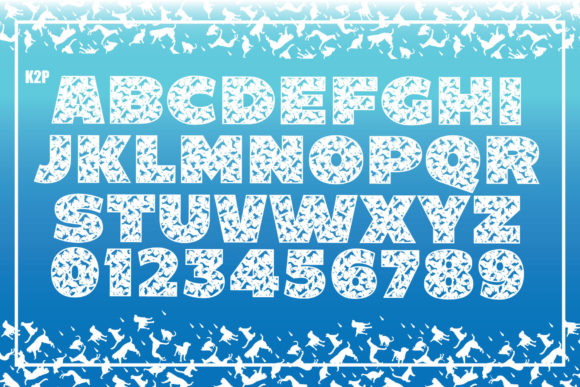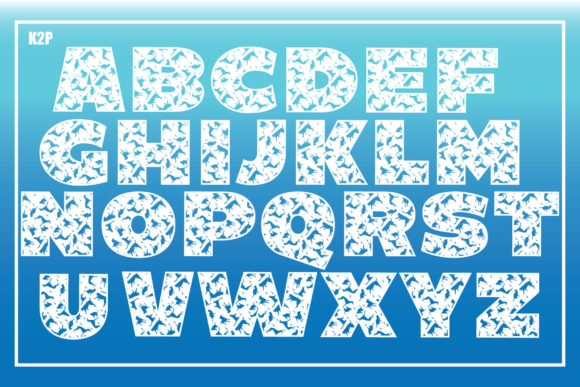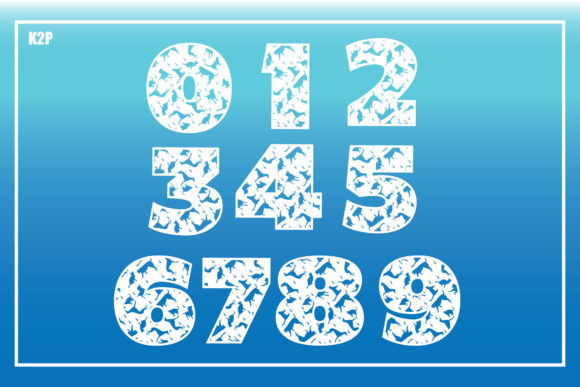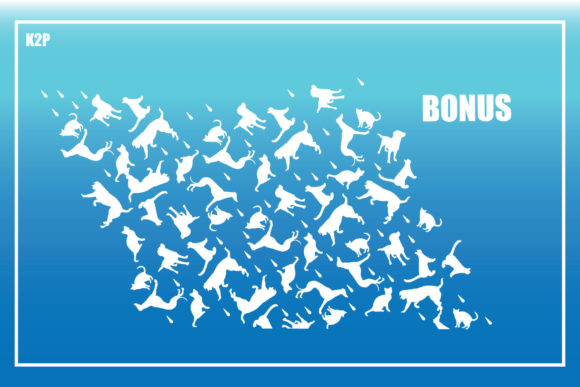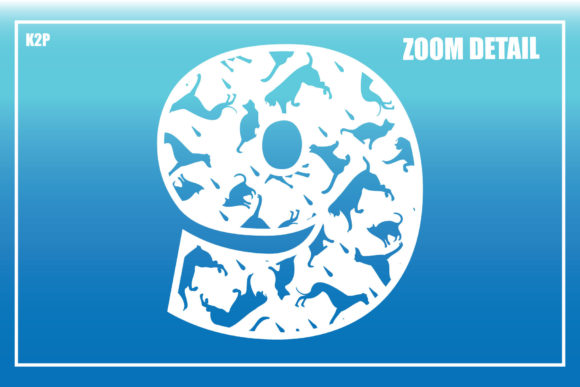
The Purr-fect Font: A Deep Dive into Cat and Dog
I’ll never forget the time I was working on a children’s game project, and my client asked me to create a custom title that looked both playful and educational. I scoured the internet for the perfect font, but nothing seemed quite right. That was until I stumbled upon the Cat and Dog font. With its thick letters and unique decorative style, it was love at first sight! In this article, I’ll share my experience with this amazing font, its features, and how to make the most of it in your designs.
So, what makes the Cat and Dog font so special? Here are a few things I love:
• ✨ Unique and playful style: The Cat and Dog font has a one-of-a-kind look that’s perfect for children’s games, school projects, and other fun designs.
• ✅ PUA encoded: This means you can access all the glyphs and swashes with ease, making it simple to customize your text.
• 💪 Thick and bold letters: The font’s thick letters make it perfect for titles, headings, and other prominent text.
• 🤔 Limited use cases: While the font is incredibly versatile, it’s not suitable for body text or more formal designs.
The Designer Inspiration Behind Cat and Dog
The Cat and Dog font was created with the intention of bringing a playful, whimsical feel to children’s designs. The designer, inspired by the joy of childhood, aimed to create a font that would make learning fun and engaging. With its unique style and PUA encoding, Cat and Dog has become a favorite among designers and crafters.